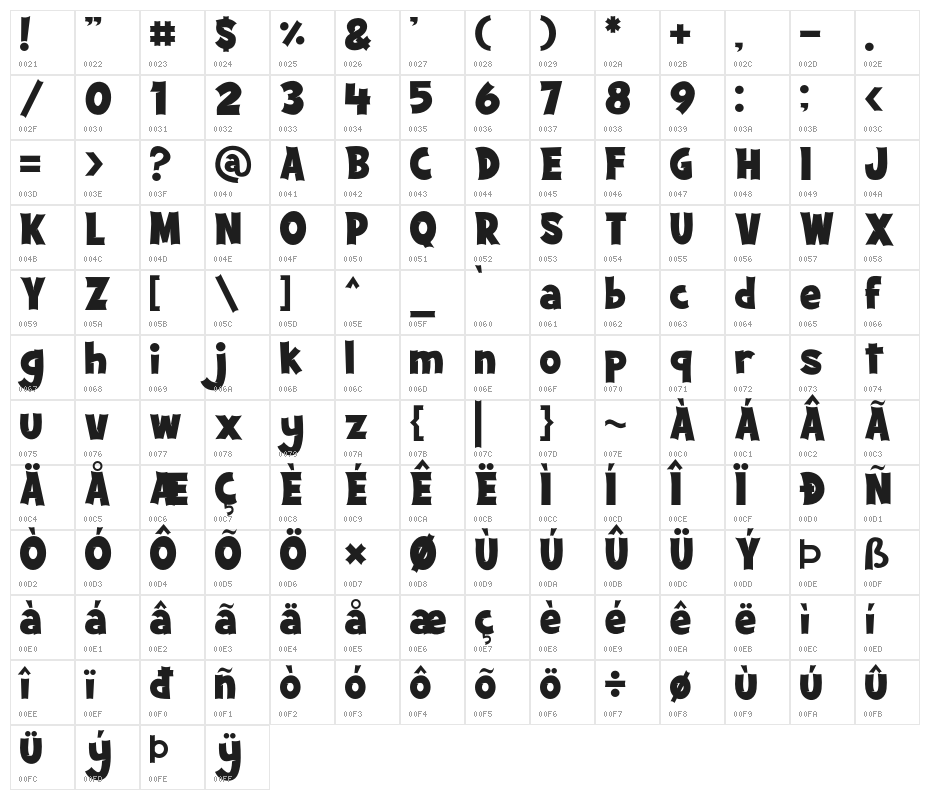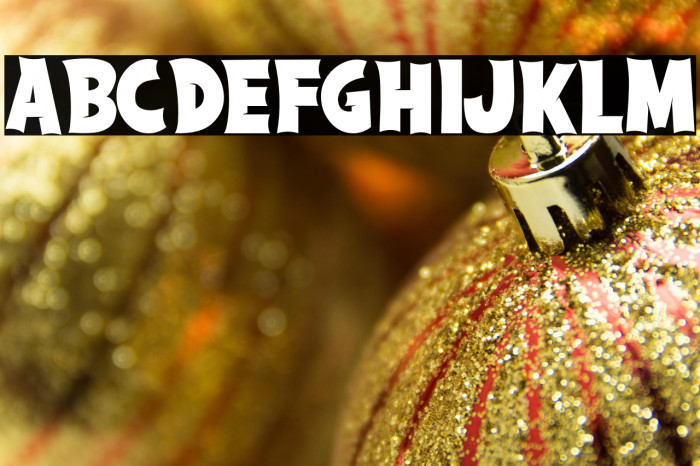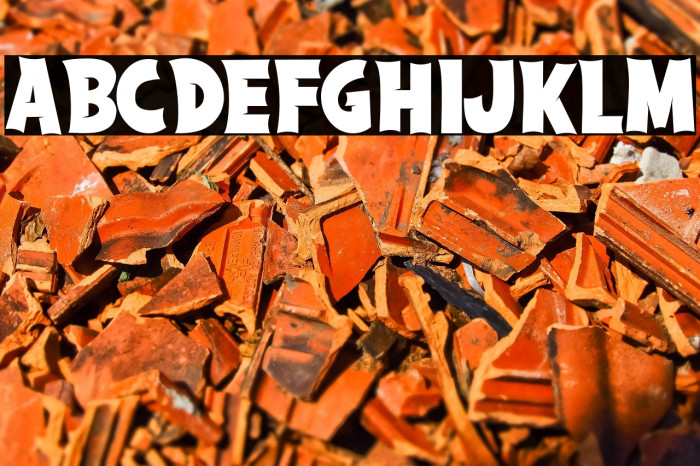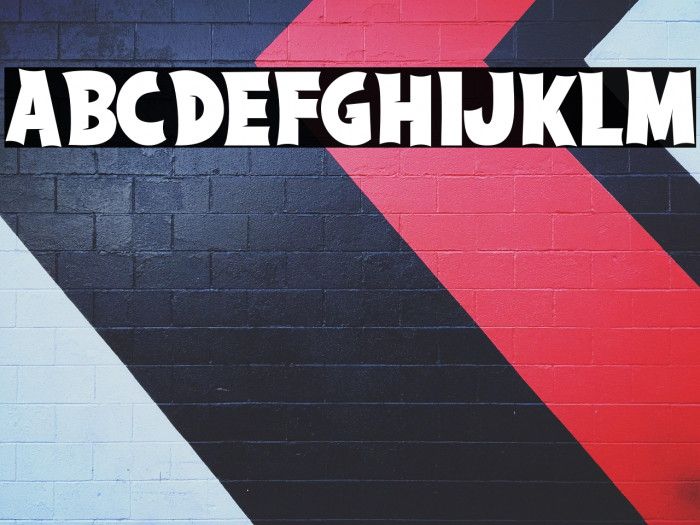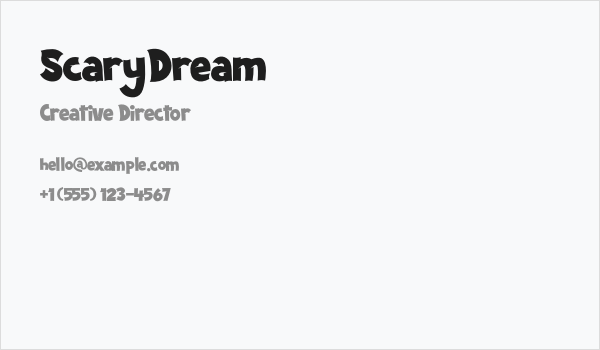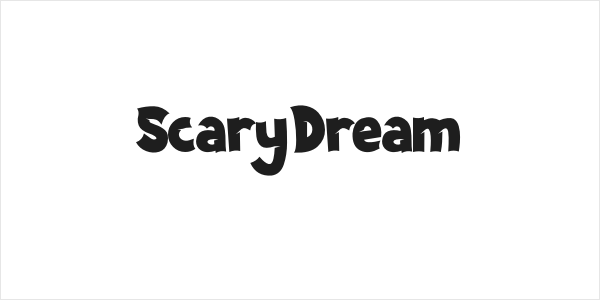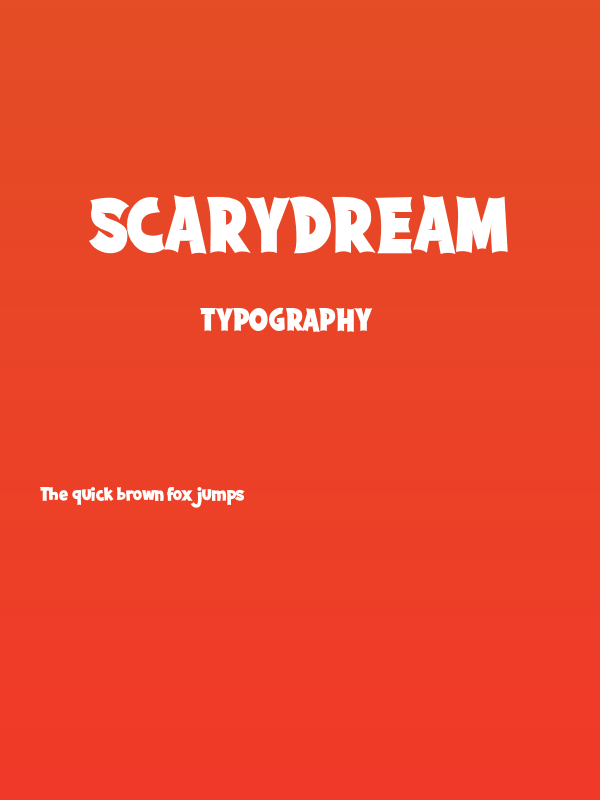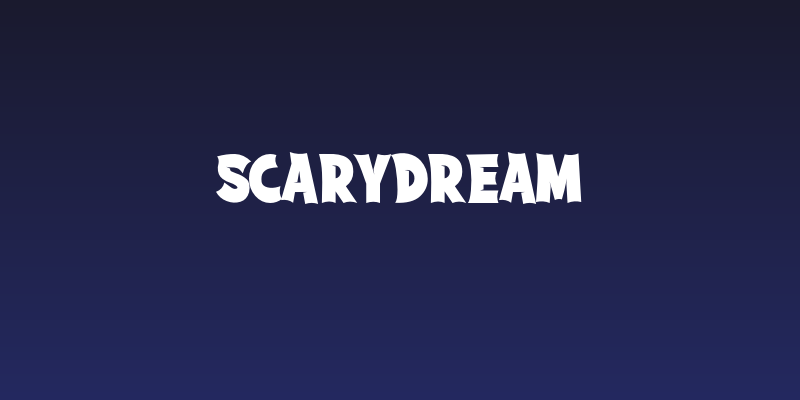
ScaryDream Font
ScaryDream Description
This font features a bold and playful design with exaggerated curves and sharp angles, creating a whimsical yet slightly eerie appearance. The characters are thick and robust, with a unique flair that suggests movement and energy. The uppercase letters are particularly striking, with a strong presence that commands attention. The lowercase letters maintain the same playful style, ensuring consistency throughout the text. Numbers and special characters are equally bold, fitting seamlessly with the overall aesthetic. This font is ideal for projects that require a fun, eye-catching typeface with a touch of the unconventional.
| Proposed Projects | Ideal for Halloween-themed designs, children's book covers, playful posters, and creative branding projects. |